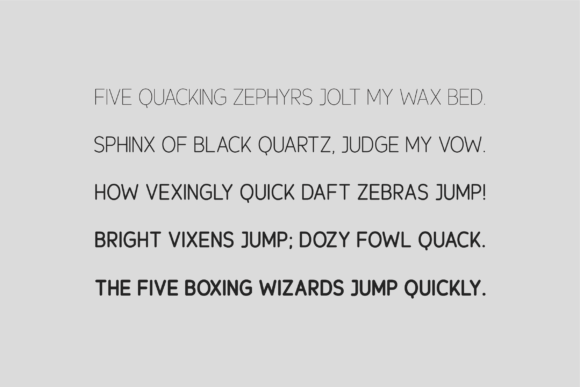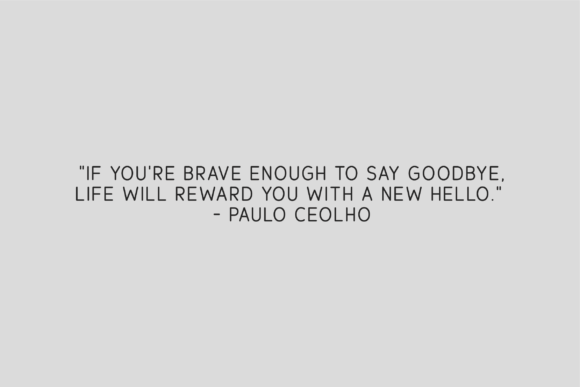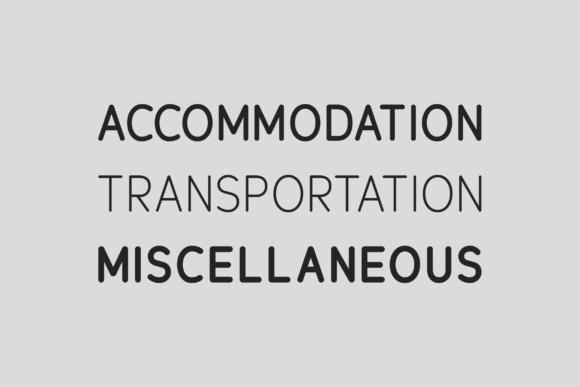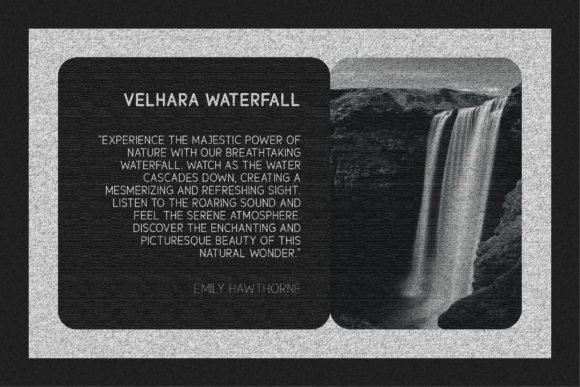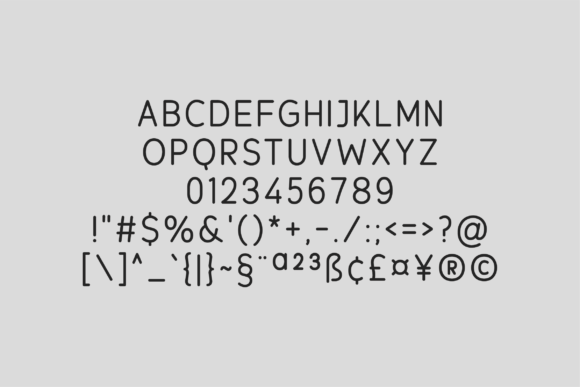
Introduction to Kryptone Rounded Font Font
Fonts play a crucial role in design, and the Kryptone Rounded Font font is a typeface that brings both character and versatility to any project. Whether you’re working on a branding project, a website, or a print design, the Kryptone Rounded Font font offers a unique style that can elevate your work.
Kryptone Rounded Font is a unique sans serif typeface that balances modernity with a friendly, approachable touch.
Its rounded edges and smooth curves give it a softer and more welcoming appearance Perfect for logos, headlines, and user interfaces, this versatile font brings a sense of modern elegance and playfulness to any design project.
Key Features of Kryptone Rounded Font Font
Why Choose Kryptone Rounded Font Font?
The Kryptone Rounded Font font is more than just a typeface – it’s a design tool that helps you communicate your message with style and clarity. Its unique character set and versatile design make it suitable for a wide range of applications, from elegant invitations to bold headlines.
With its carefully crafted letterforms and balanced proportions, the Kryptone Rounded Font font ensures readability and visual appeal across all mediums.
What makes Kryptone Rounded Font font special?
The Kryptone Rounded Font font stands out with its unique design, exceptional readability, and versatility across various design applications.